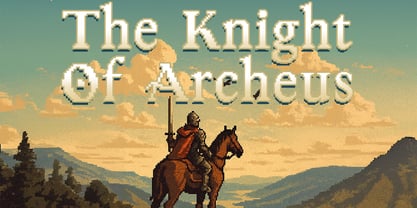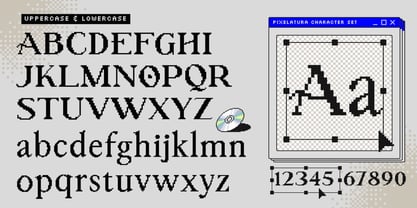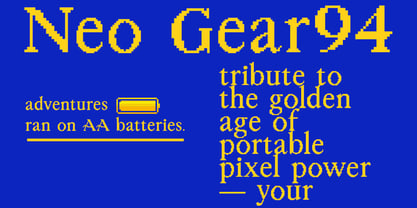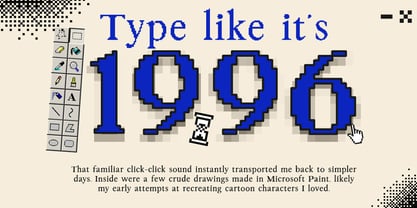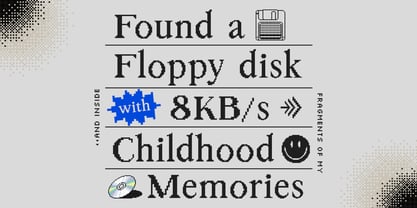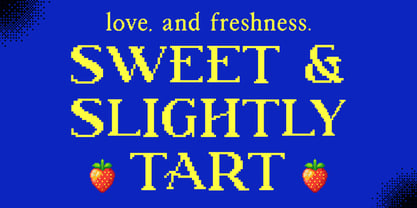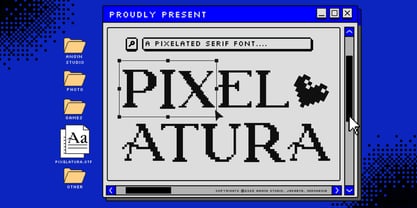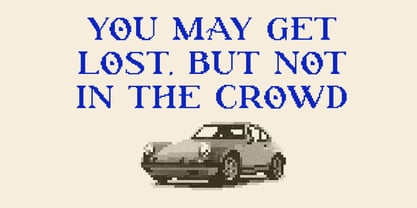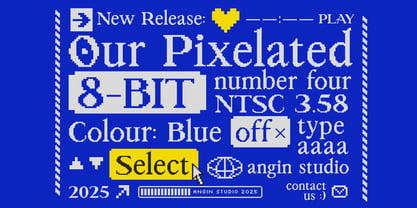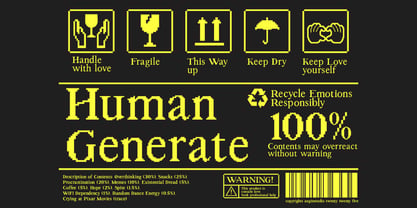
Pixelatura
by Angin Studio
The Pixelatura Font Family was designed by Ahmad Aswin, David Novrian and published by Angin Studio. Pixelatura contains 1 styles. More about this family
Pixelatura is a pixelated serif display typeface crafted with a nod to retro computer graphics and 90s digital nostalgia. Blending sharp pixel construction with classic serif forms, this typeface delivers a distinctive look that feels both vintage and modern.
Pixelatura will take you back to the simple days of childhood.
Before Photoshop, before layers, before undo buttons, you could trust there was MS Paint where every drawing was a masterpiece in our eyes, just a quiet monitor glow and the sound of a clicking mouse, and sometimes, it even got printed out on that loud inkjet printer and stuck to the fridge.
Pixelatura is like a floppy disk that holds the curiosity of a child discovering the digital world for the first time storing laughter, frustration when the computer freezes, and the pride of successfully saving a file without error.
It was frustrating. It was fun. It was freedom.
Pixelatura wasn’t just a font. It was a feeling.
Designers: Ahmad Aswin, David Novrian
Foundry: Angin Studio